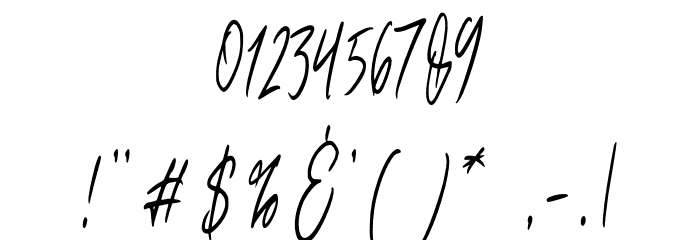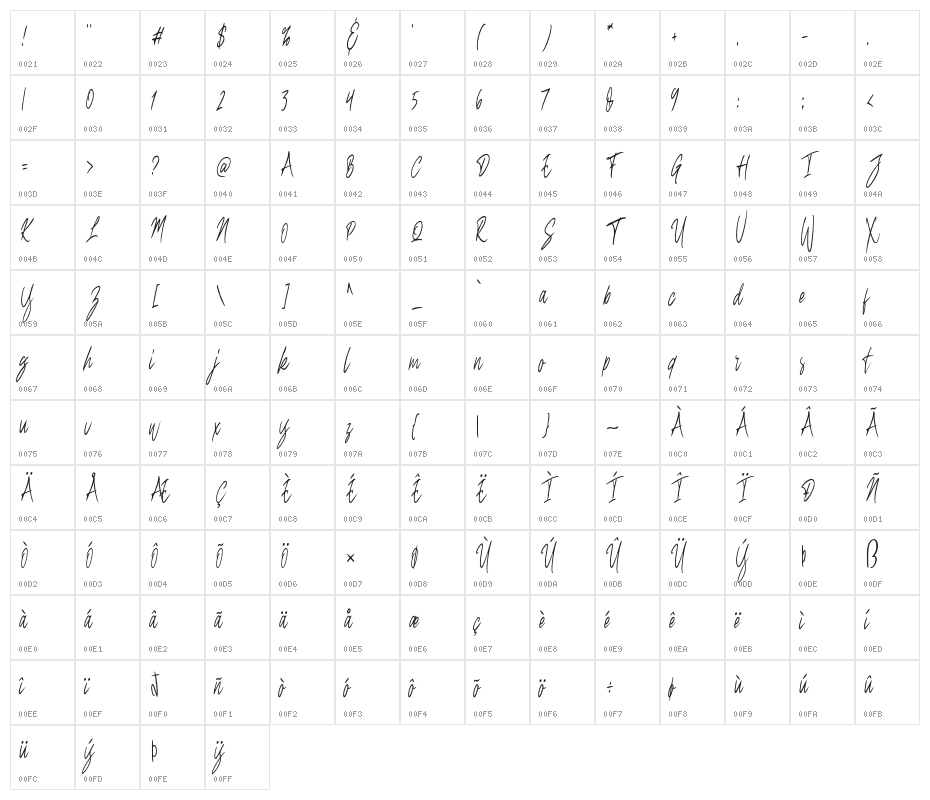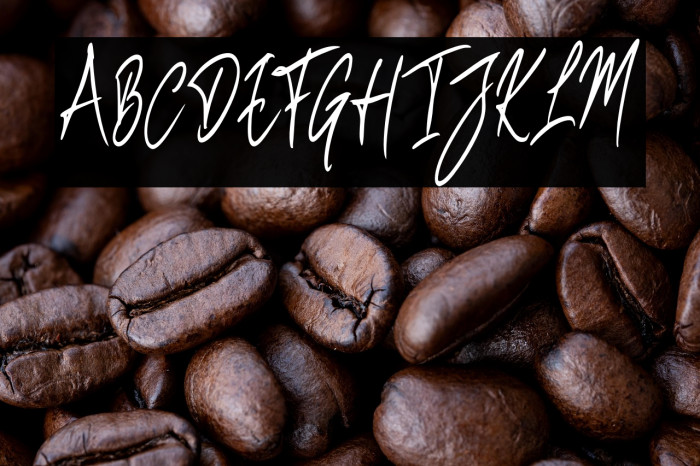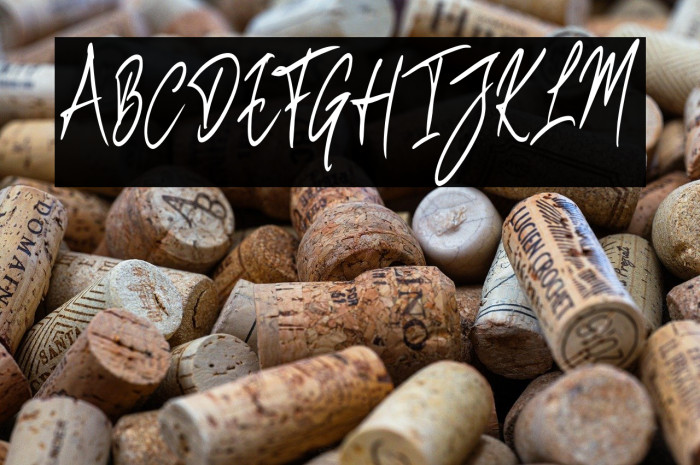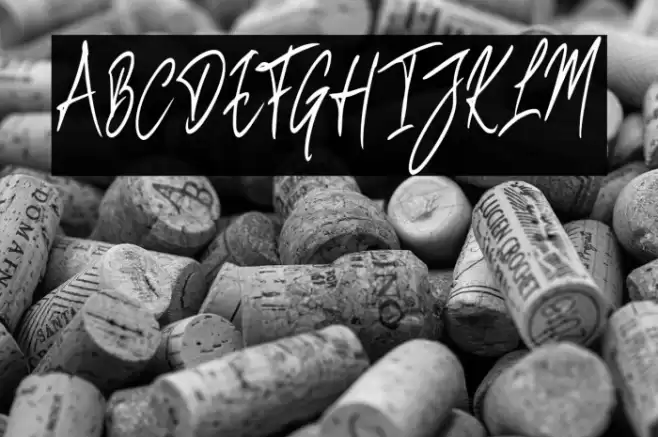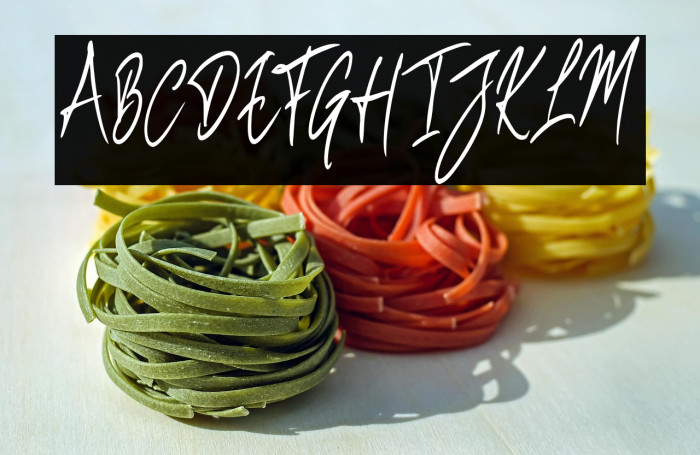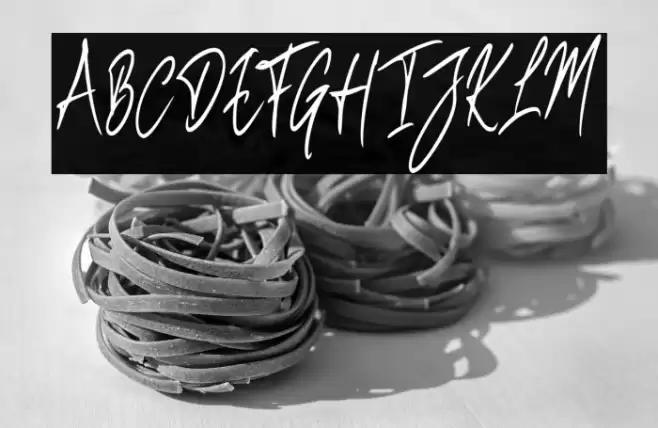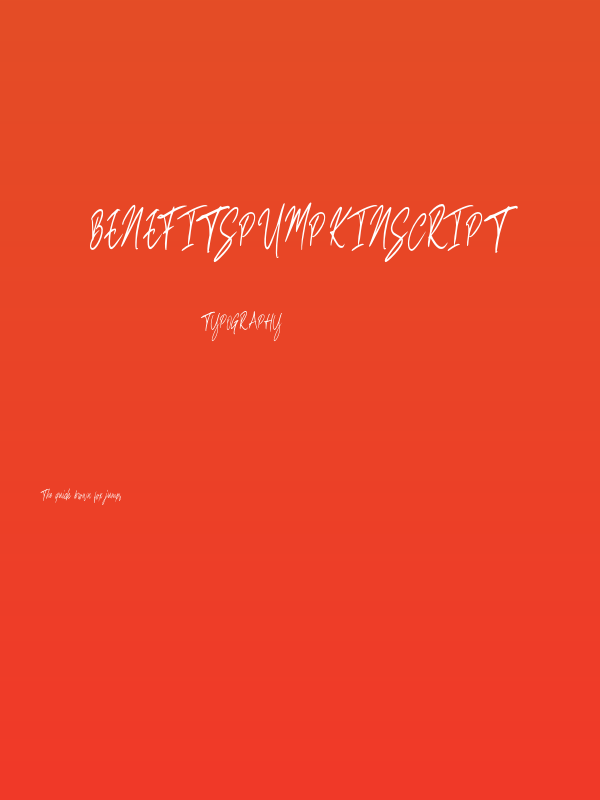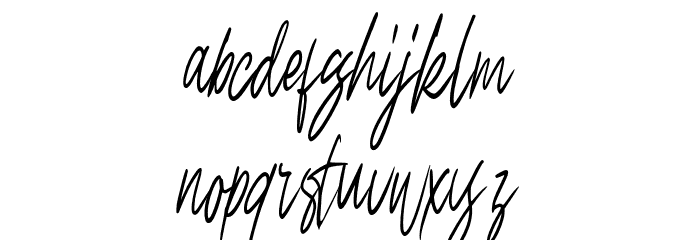
BenefitspumpkinScript Font
BenefitspumpkinScript Description
This font features a dynamic and fluid script style, characterized by its elegant and flowing letterforms. The strokes are smooth and connected, giving it a handwritten appearance that is both stylish and personal. The uppercase letters are bold and expressive, while the lowercase letters maintain a consistent rhythm and flow. The numerals are clear and distinct, complementing the overall aesthetic. Special characters are thoughtfully designed to match the script's lively nature, making it versatile for various creative applications.